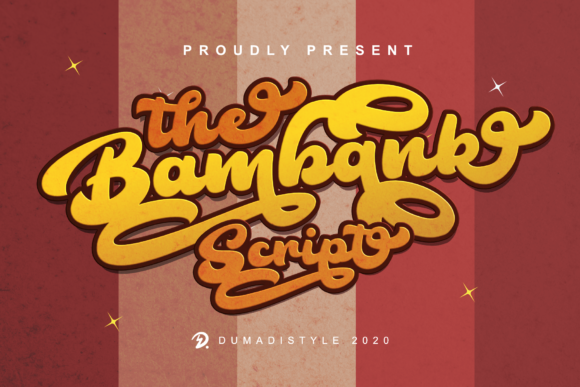
Step into a world of captivating expression with The Bambank Script Font, a mesmerizing handwritten font that exudes a timeless vintage charm. Embark on a creative journey where your imagination takes center stage, and your designs come alive with an authentic, hand-crafted touch.
With its PUA encoding, The Bambank Script Font grants you effortless access to a treasure trove of glyphs and swashes, empowering you to unleash your creativity and weave intricate designs with unparalleled ease. Its varying baseline adds a touch of dynamism, infusing your projects with a sense of organic movement and visual intrigue.
As you explore the depths of The Bambank Script Font, you'll be captivated by its smooth lines, a testament to the meticulous craftsmanship that went into its creation. Each stroke flows seamlessly, inviting you to immerse yourself in the beauty of written artistry.
Discover a symphony of gorgeous glyphs, meticulously designed to enhance your designs with an air of sophistication and elegance. Embellish your creations with stunning alternates, adding depth and dimension to your typography.
Fall head over heels in love with the incredibly versatile style of The Bambank Script Font. Its adaptability knows no bounds, making it the perfect companion for an array of projects, from heartfelt invitations and elegant branding to striking social media graphics and eye-catching logos.
With The Bambank Script Font, you hold the key to unlocking spectacular designs that leave a lasting impression. Its vintage essence adds a touch of nostalgia, while its modern sensibilities ensure that your creations remain relevant and captivating.
Indulge in the beauty of The Bambank Script Font and embark on a creative odyssey where your imagination reigns supreme. Let your designs flourish with a font that speaks to your soul and captivates the hearts of all who behold it.